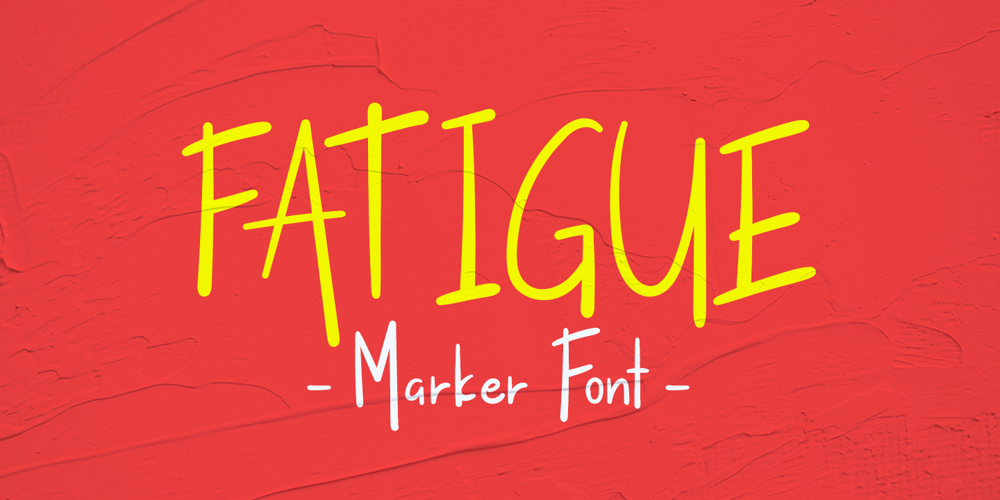
Fatigue Font Family was designed by Hamzah Muhamad Ihsan and published by Typesthetic Studio. Fatigue contains 1 styles and family package options. Heroic is a bold and playfull handwritten brush font. This font is very unique because sometimes it can look fierce like in modern street art graffiti if with capital letters, but sometimes it can look cute if it is included with the lowercase letters. As a result, this font can matches a wide pool of designs.